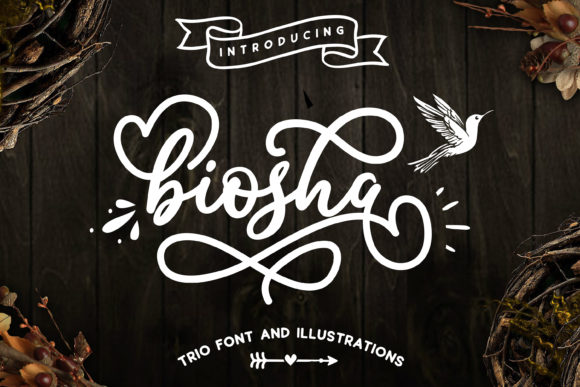
Immerse yourself in the captivating beauty of Biosha Font, a masterpiece crafted by the talented BlackCatsMedia. This alluring script font exudes elegance and finesse, leaving a lasting impression on your creative endeavors. Its enchanting charm will transform your designs into captivating works of art.
With its graceful curves and impeccable flow, Biosha Font brings a touch of sophistication to your projects. Its authentic vibe evokes a sense of nostalgia and warmth, making it ideal for designs that seek a personal connection. From wedding invitations to personal branding, this font adds a touch of magic that speaks to the heart.
Embrace the versatility of Biosha Font and let your creativity flourish. Its seamless adaptability makes it suitable for a diverse range of projects, from social media graphics to eye-catching logos. Whether you're a seasoned designer or just starting your design journey, Biosha Font will elevate your work to new heights.
Indulge in the artistry of Biosha Font and experience the joy of creating designs that resonate with your audience. Its stunning appearance will captivate your viewers, leaving them enchanted by your creations. Dive into the world of Biosha Font and let your imagination run wild.